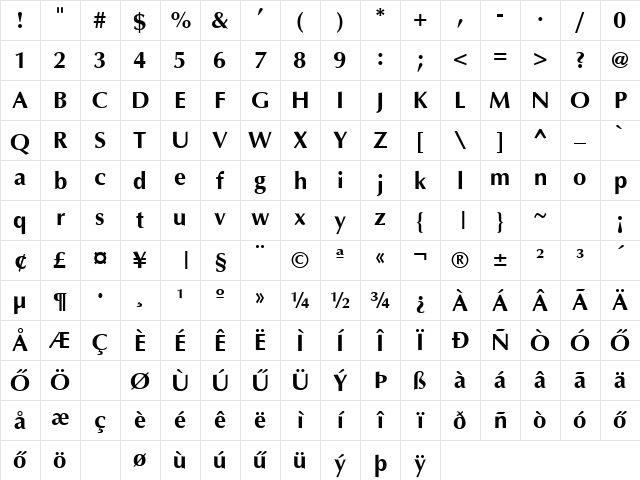
Complete HOttawa Bold glyph index. Displaying only characters natively supported by HOttawa Bold font.
HOttawa is a composed and adaptable typeface that performs quietly and consistently across a wide range of design contexts. Its bold stroke weight gives it real presence on the page.